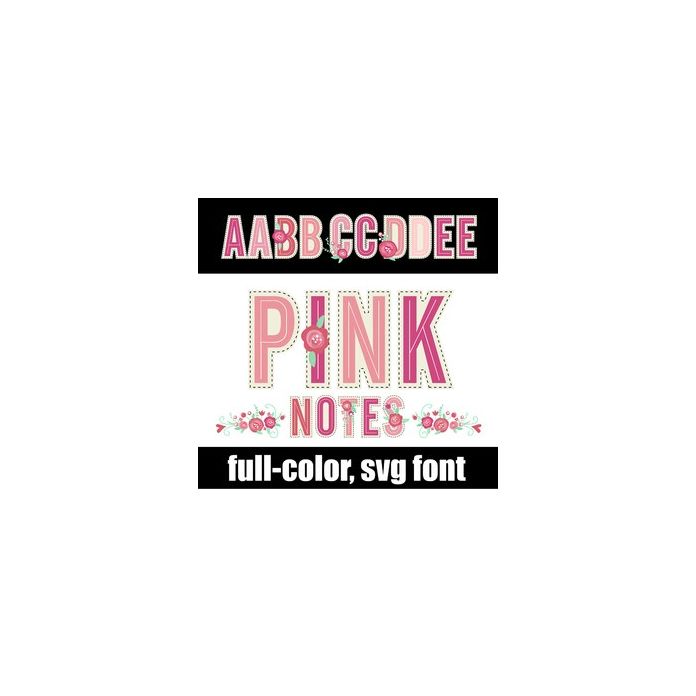
This full-color font features pretty sans serif letters and pink florals. There are wonderful flourishes that you can access through typing your greater than and less than glyphs. There is an alt case w/ additional colors you can access through your system or Silhouette's glyph map.